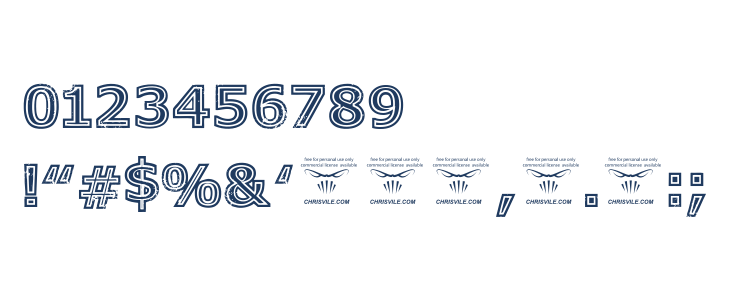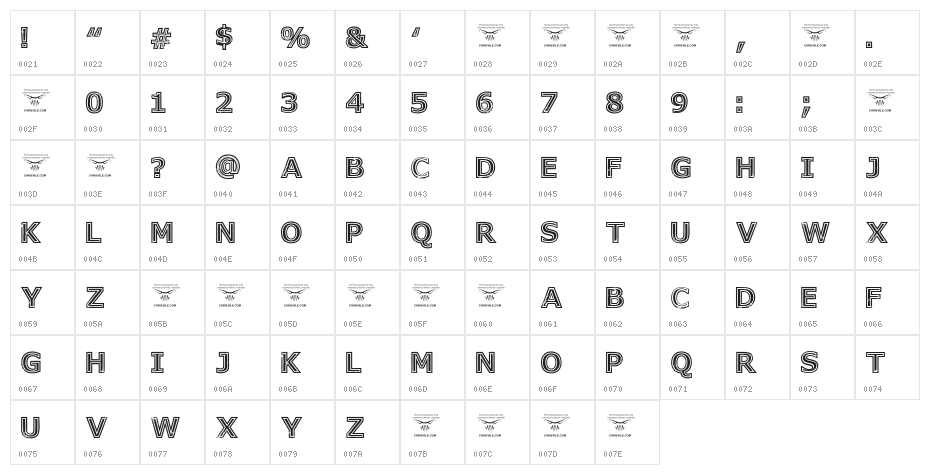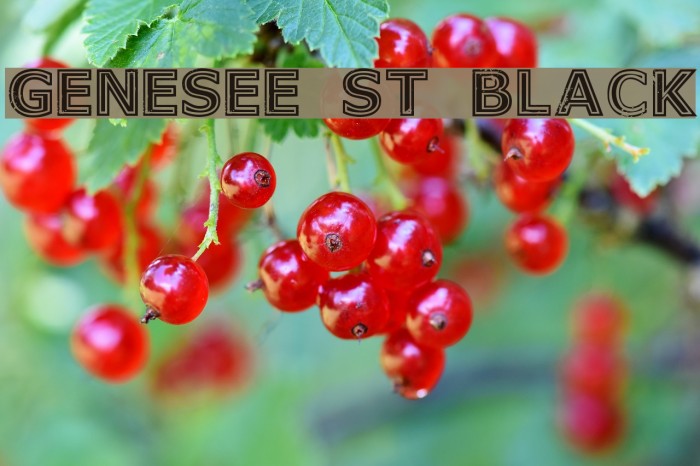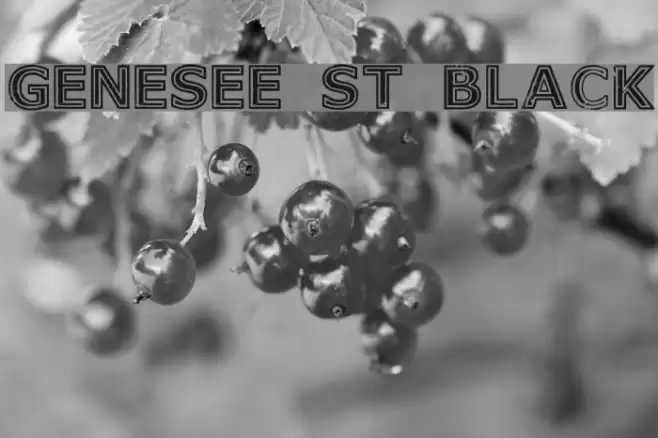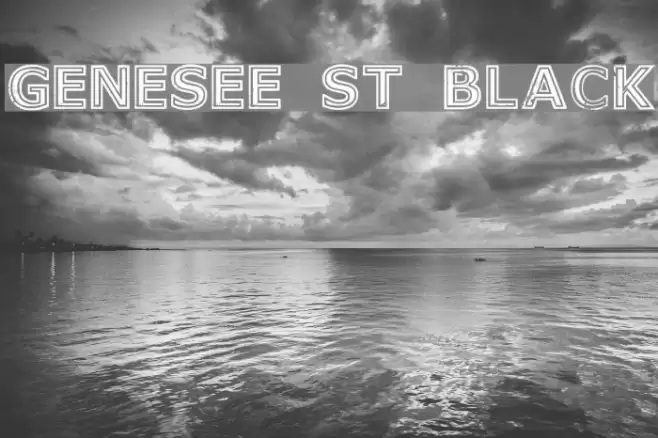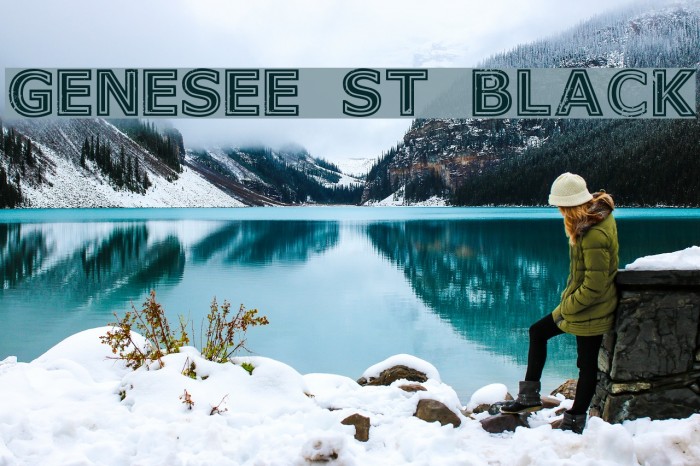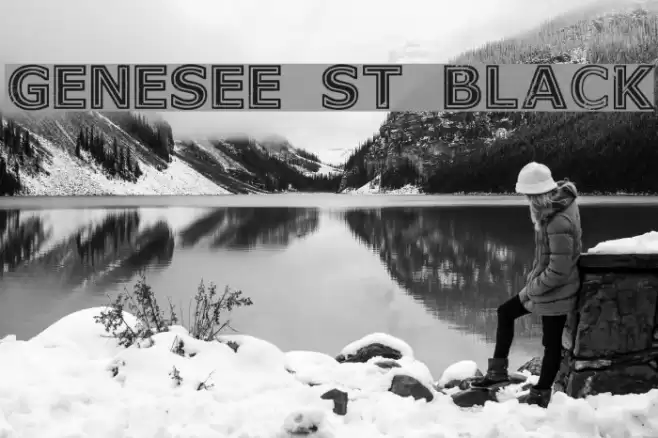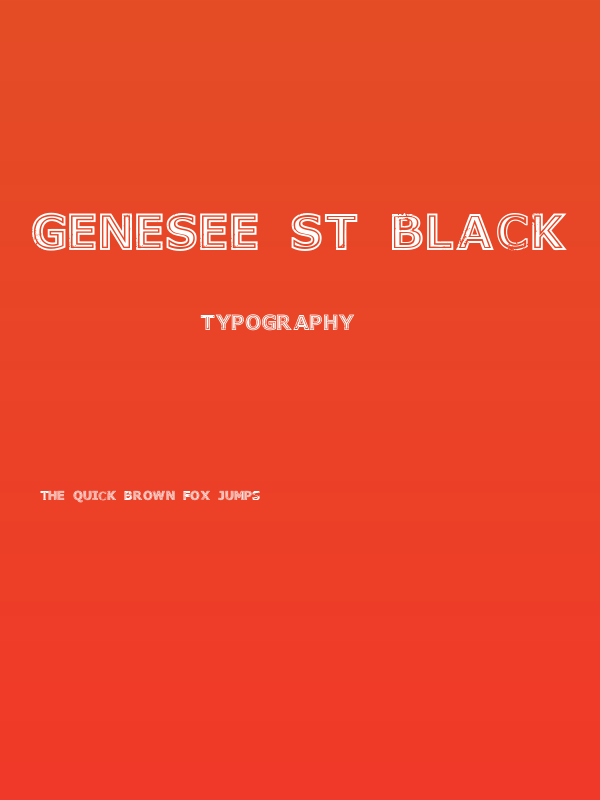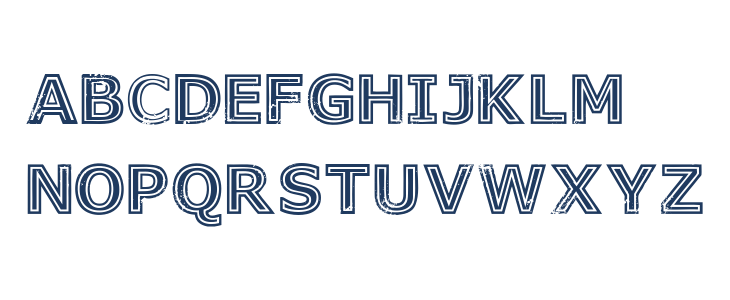
Genesee St Black Font
Genesee St Black Description
This font features a bold, distressed style with a strong, impactful presence. The characters have a rough, textured appearance, giving them a vintage and worn look. The uppercase and lowercase letters maintain a consistent weight, with a slight variation in the texture that adds character and uniqueness to each glyph. The numerals and special characters follow the same design, ensuring uniformity across all elements. This font is ideal for projects that require a rugged, industrial feel, such as posters, logos, and branding materials. Its boldness and distinctive style make it stand out, while the distressed texture adds an element of authenticity and age.